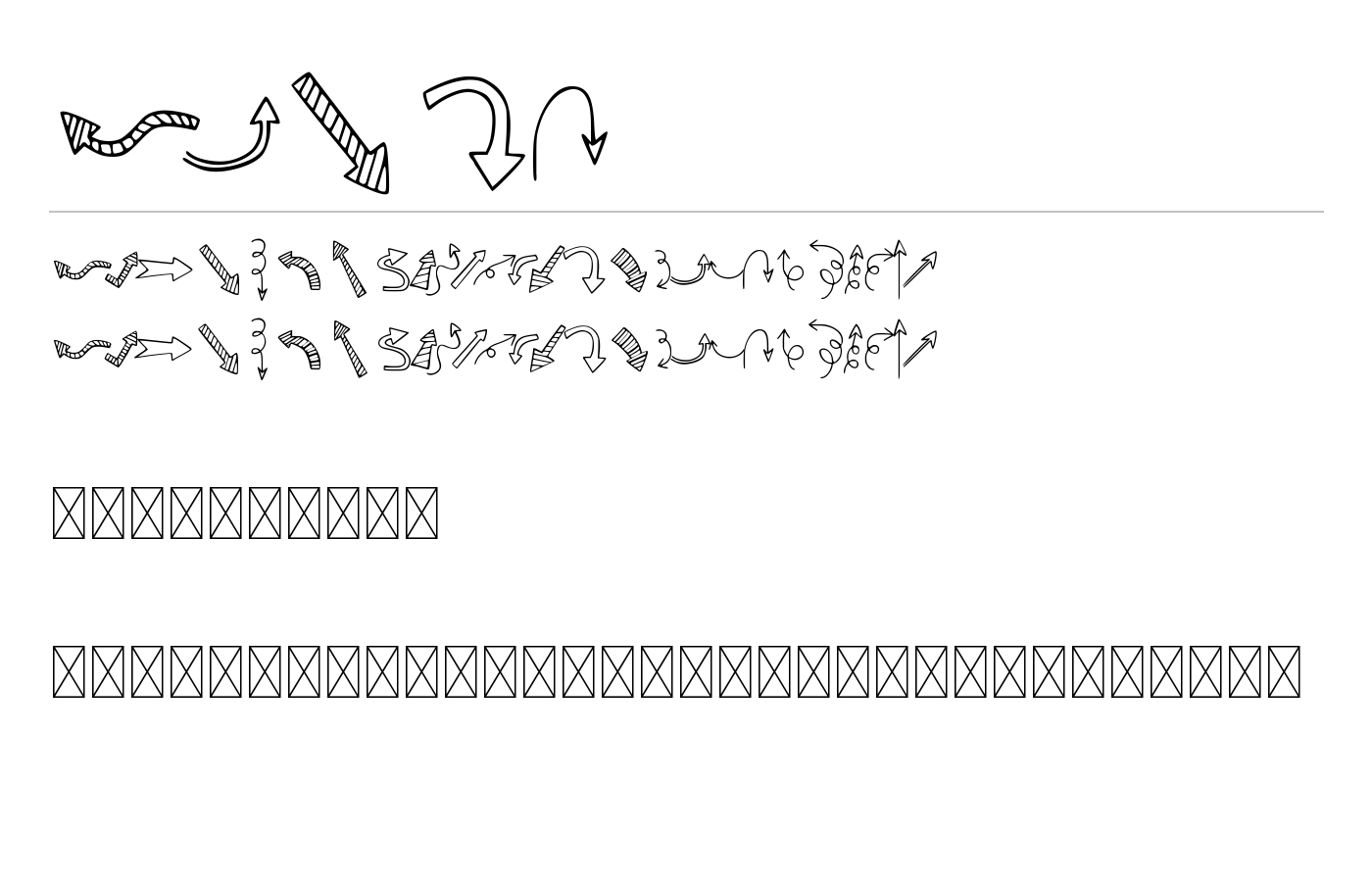
Ardot is a playful and quirky dingbat font featuring a variety of hand-drawn arrows with unique, irregular shapes and whimsical details. Its light and thin strokes give it a casual, informal feel, making it perfect for adding a creative and fun touch to design projects such as posters, invitations, or any informal branding that needs visual direction elements with personality.
Ardot Font
About Ardot Font
| Font family | Ardot Font |
| Designer | Letterge Studio |